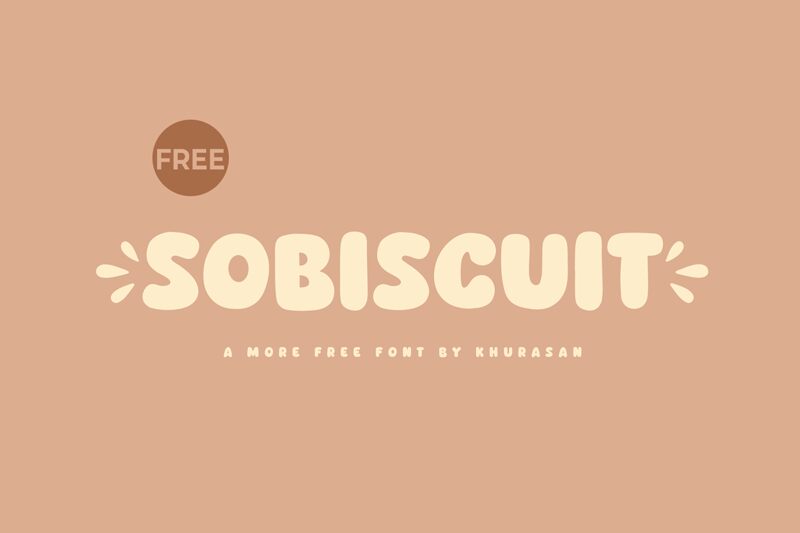
Sobiscuit
Sobiscuit, designed by Khurasan, is a playful and impactful display font that brings an extra-bold cartoon style to life with its cheerful curves and friendly appearance. Its rounded forms exude a sense of fun and creativity, making it an excellent choice for projects that aim to convey warmth, whimsy, or childlike wonder. The boldness of Sobiscuit ensures that it stands out on any page or screen, ideal for headlines, logos, and any design work where personality is key. Its unique characteristics serve to attract attention while remaining readable—a balance that enhances its versatility across various creative applications.
Whether you're crafting invitations for a special event or designing an engaging children's book cover, Sobiscuit adds a touch of joy and liveliness to your project.